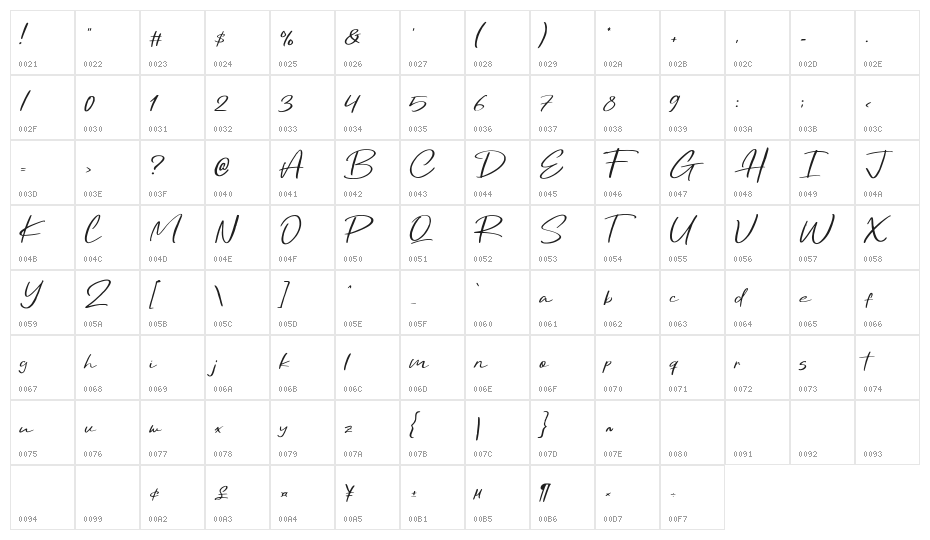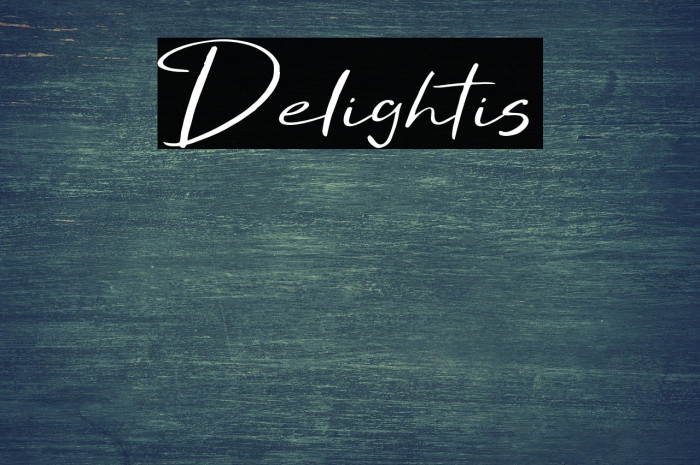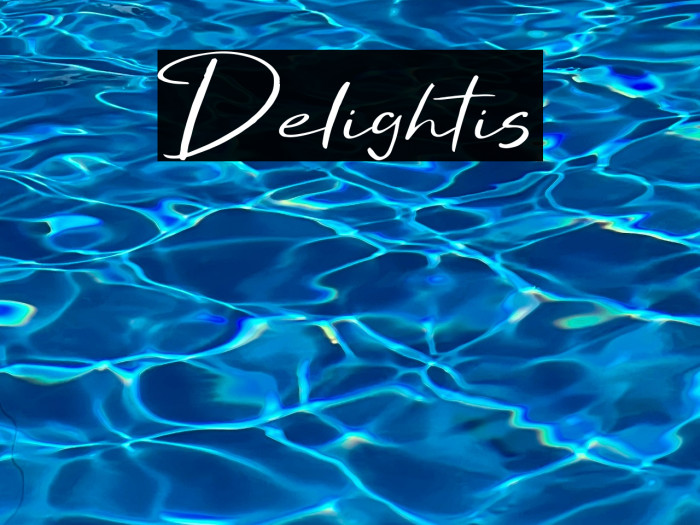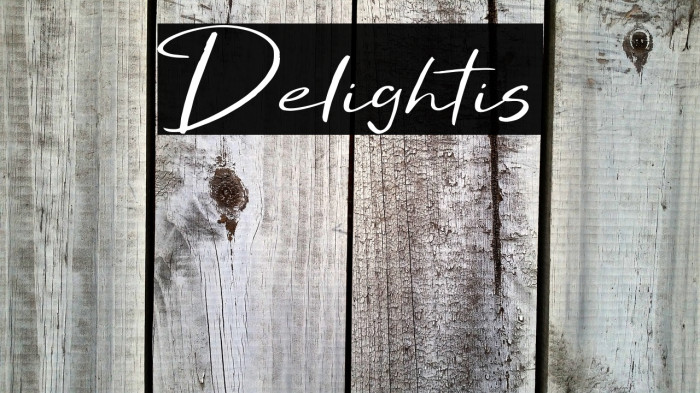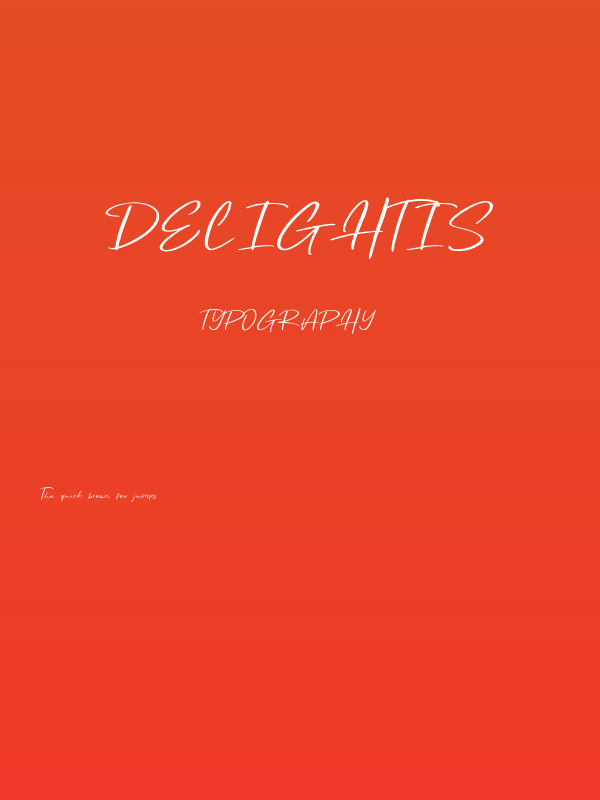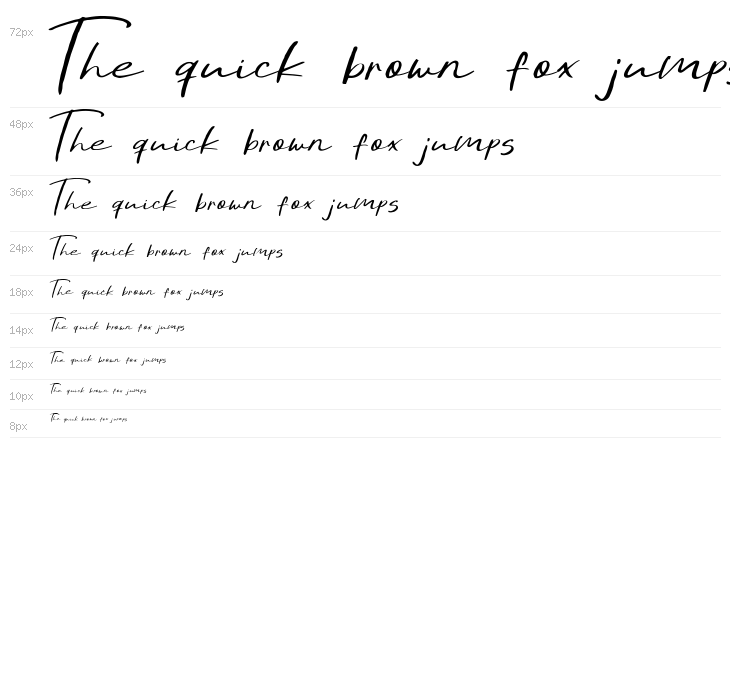
Delightis Font
Delightis Description
A flowing, cursive script font with a handwritten style, featuring smooth, connected strokes and a casual elegance.
| Use Case | Logos, Invitations, Personal Branding |
| Proposed Projects | Invitations, greeting cards, personal branding. |